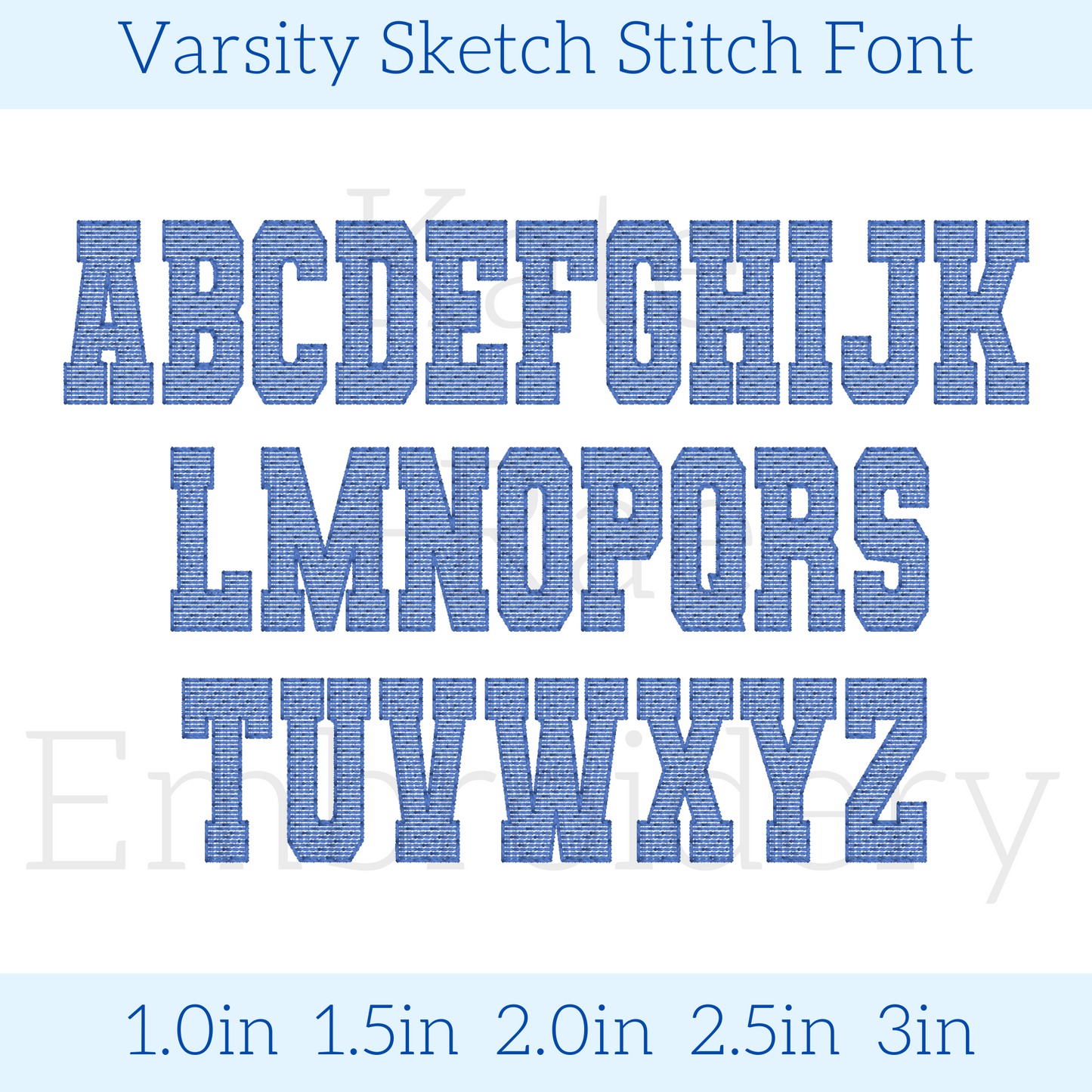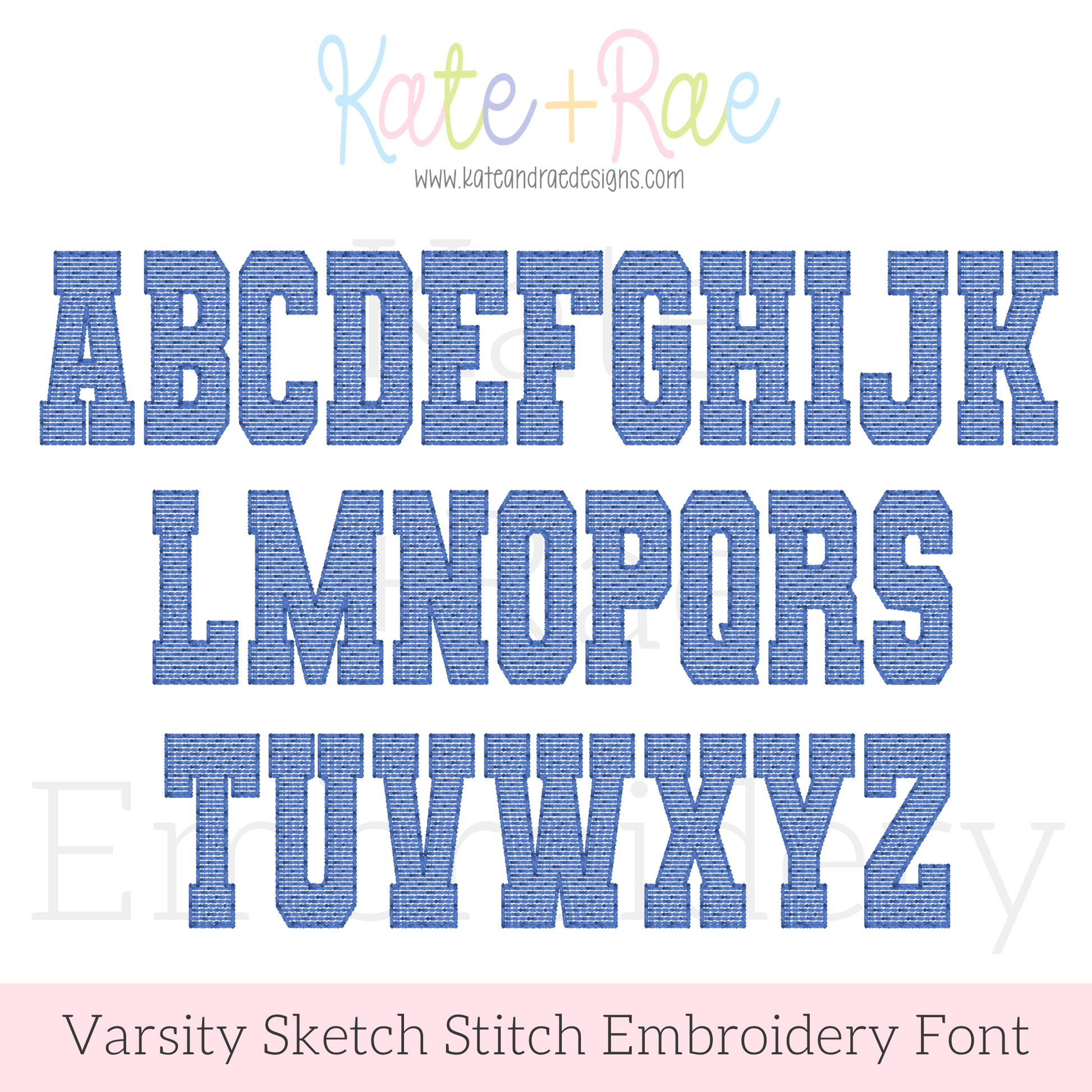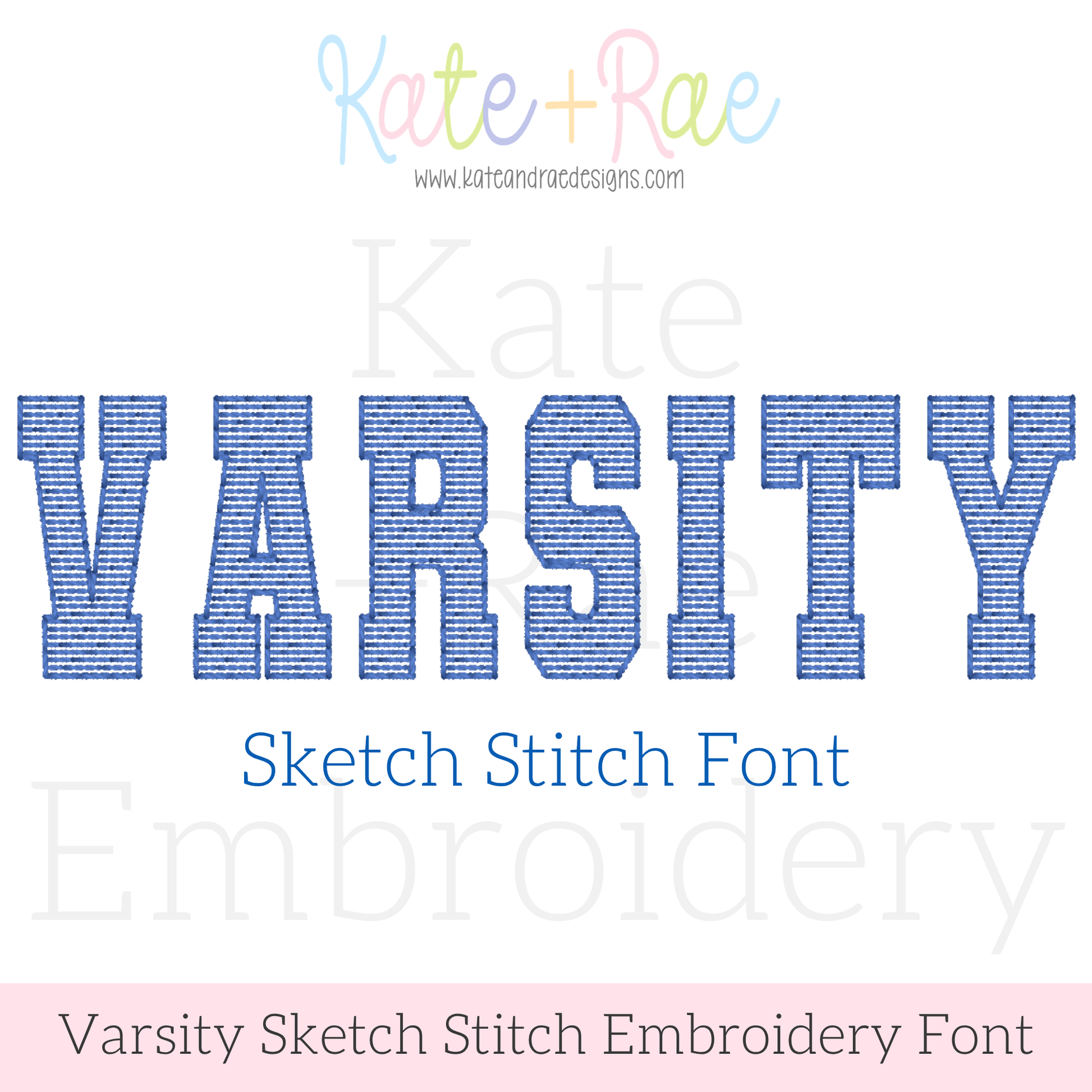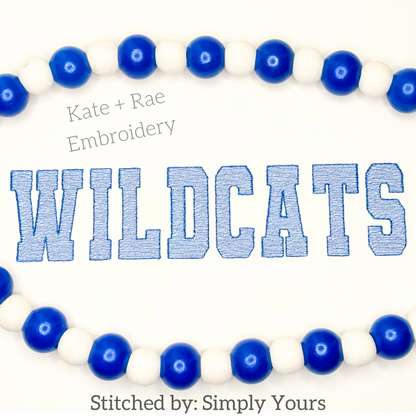
Varsity Sketch Stitch Embroidery Font: Font preview reading VARSITY in blue collegiate block letters, sketch stitch font
Varsity Sketch Stitch Embroidery Font
Show your team spirit with the Varsity sketch stitch font! Spell out names and numbers on game day shirts and spirit wear.